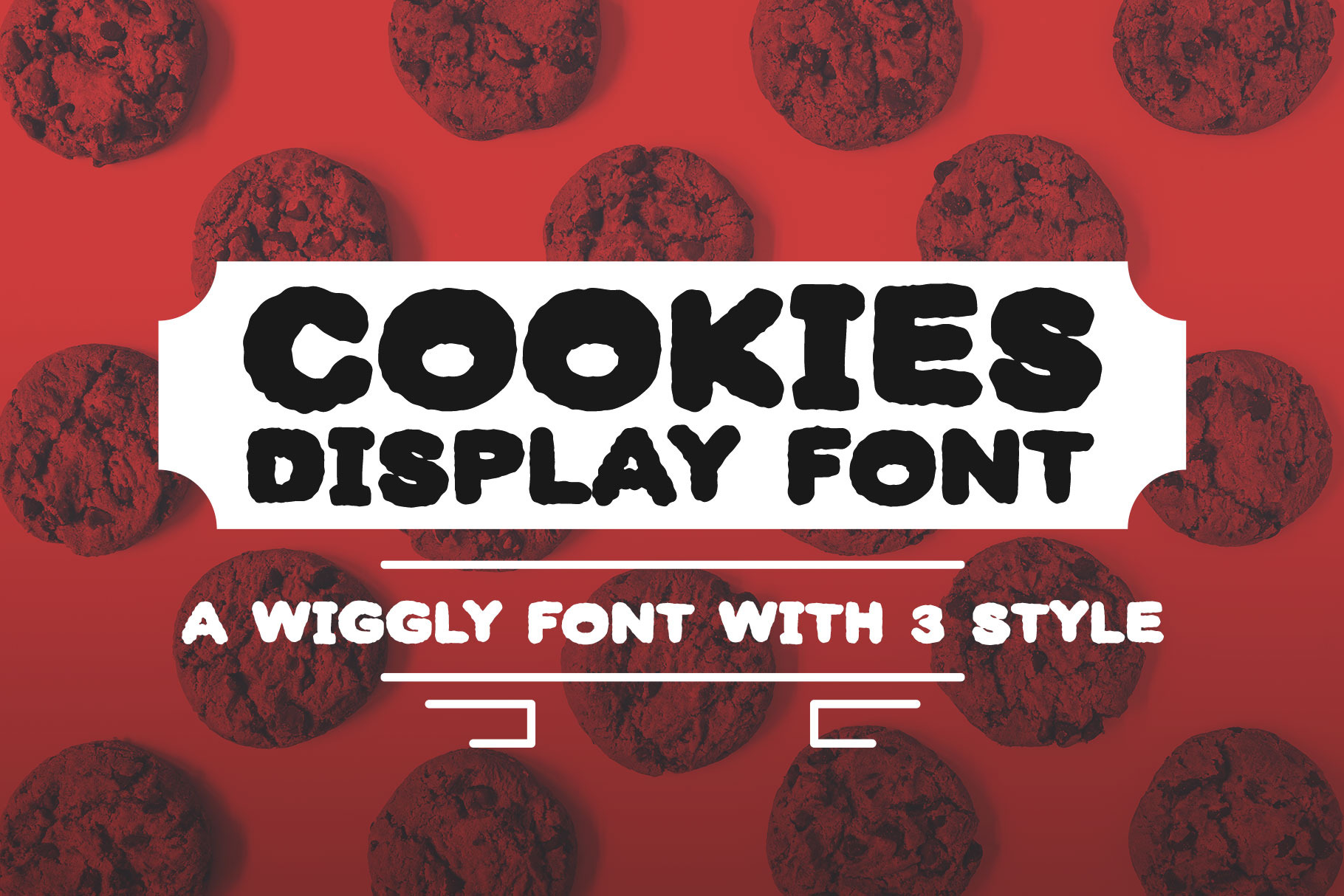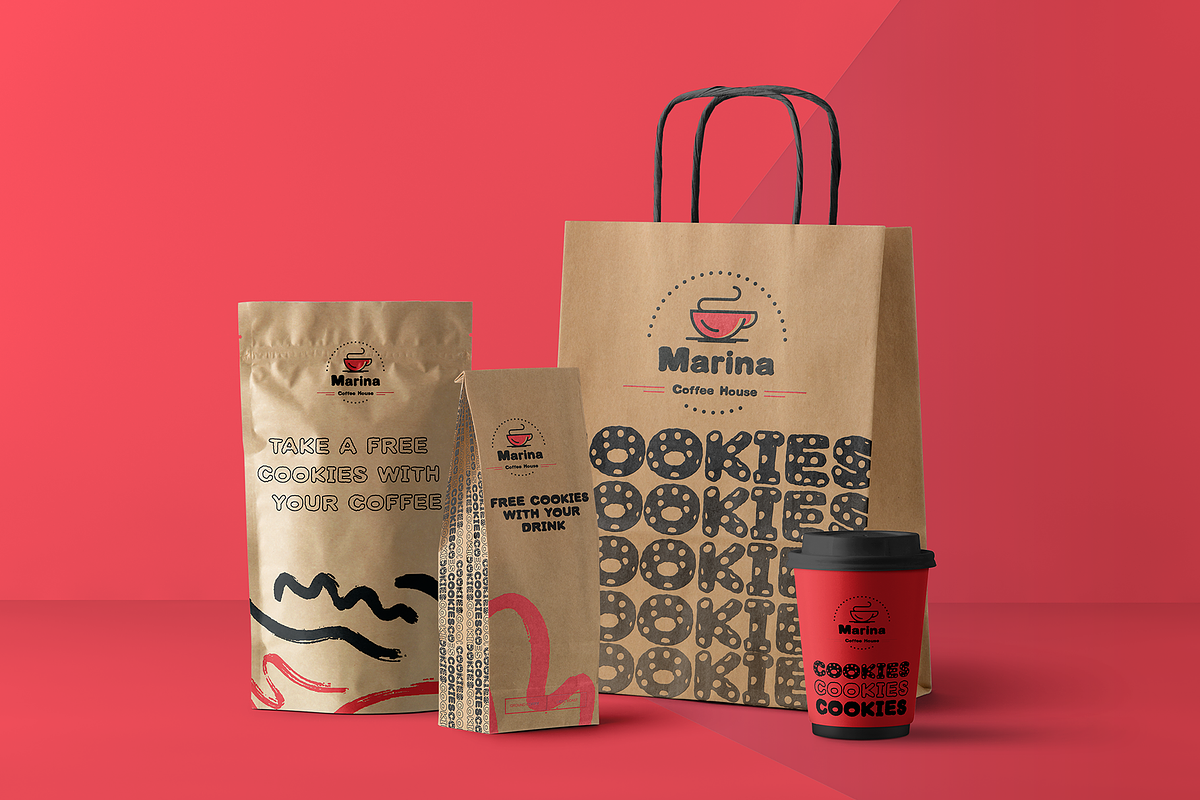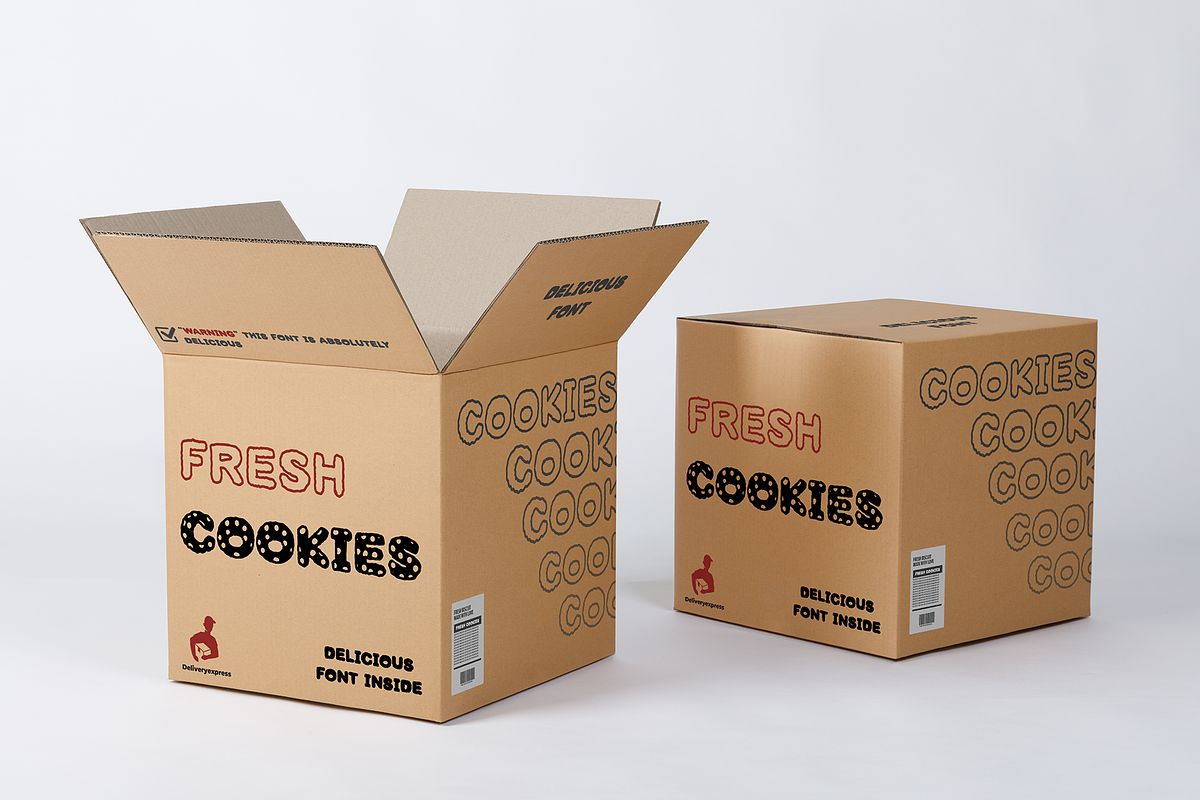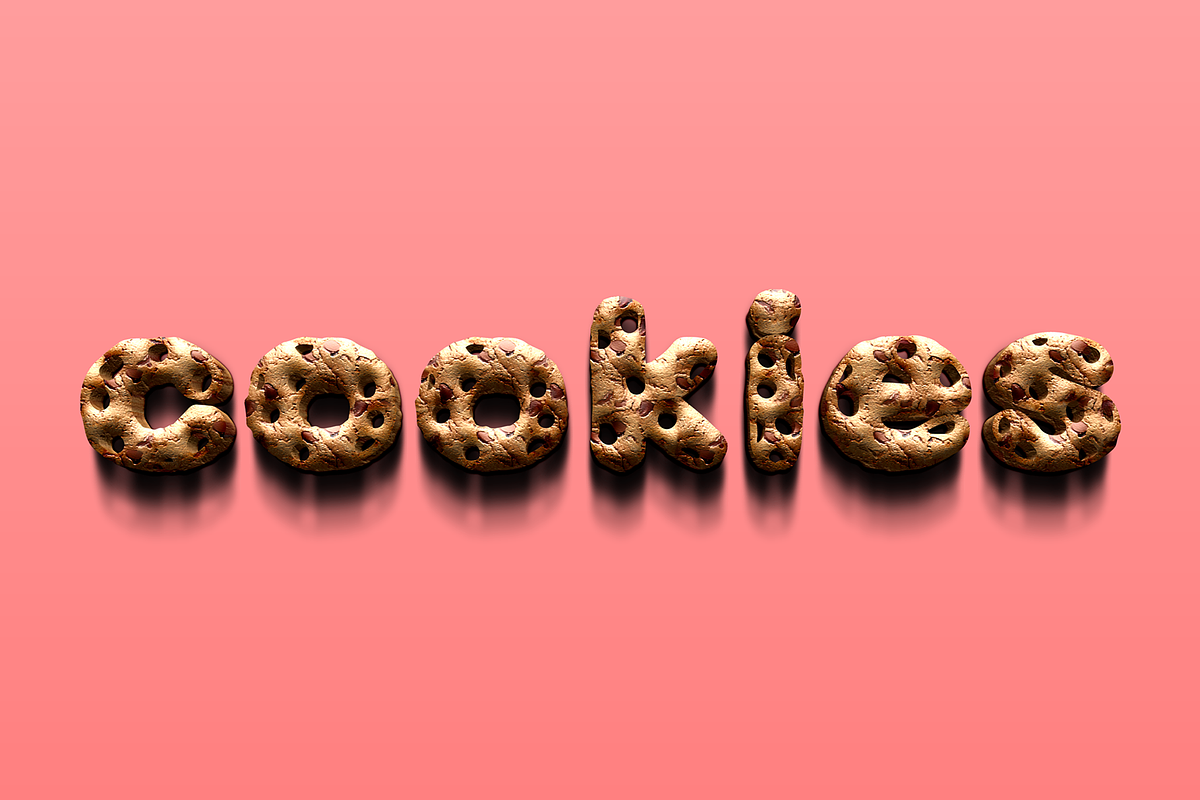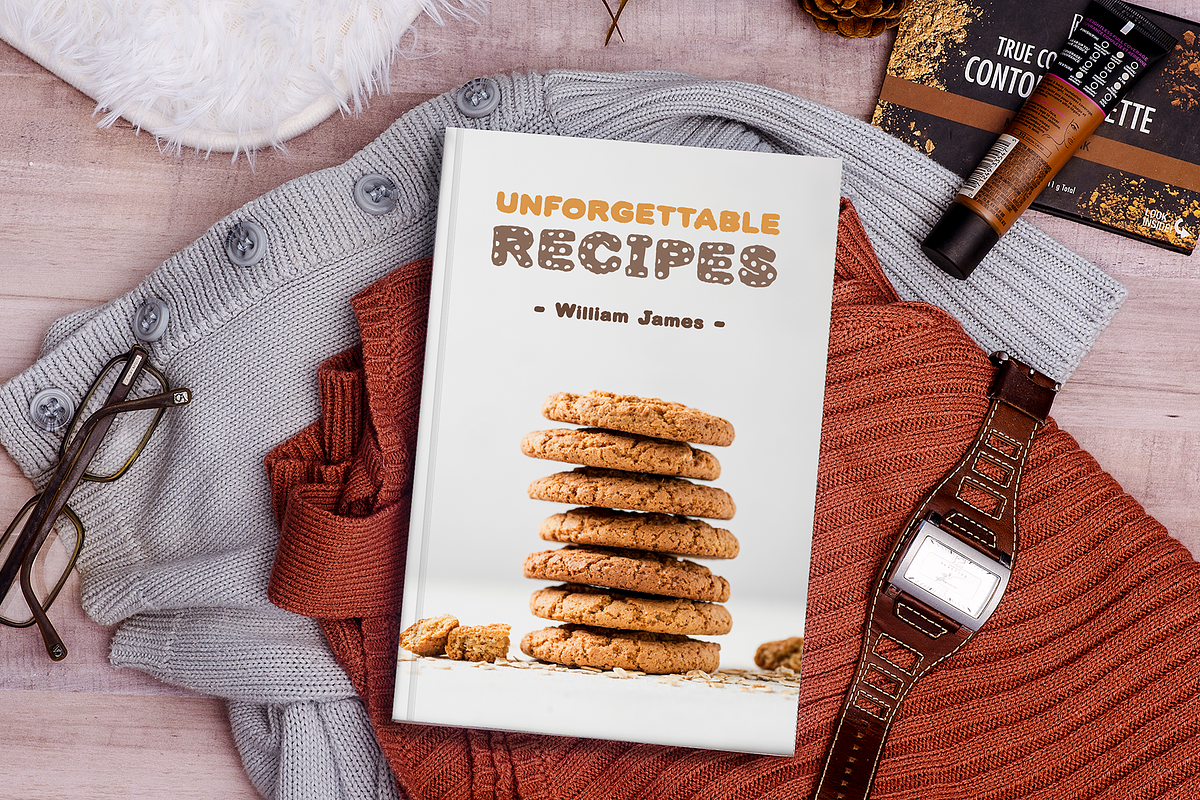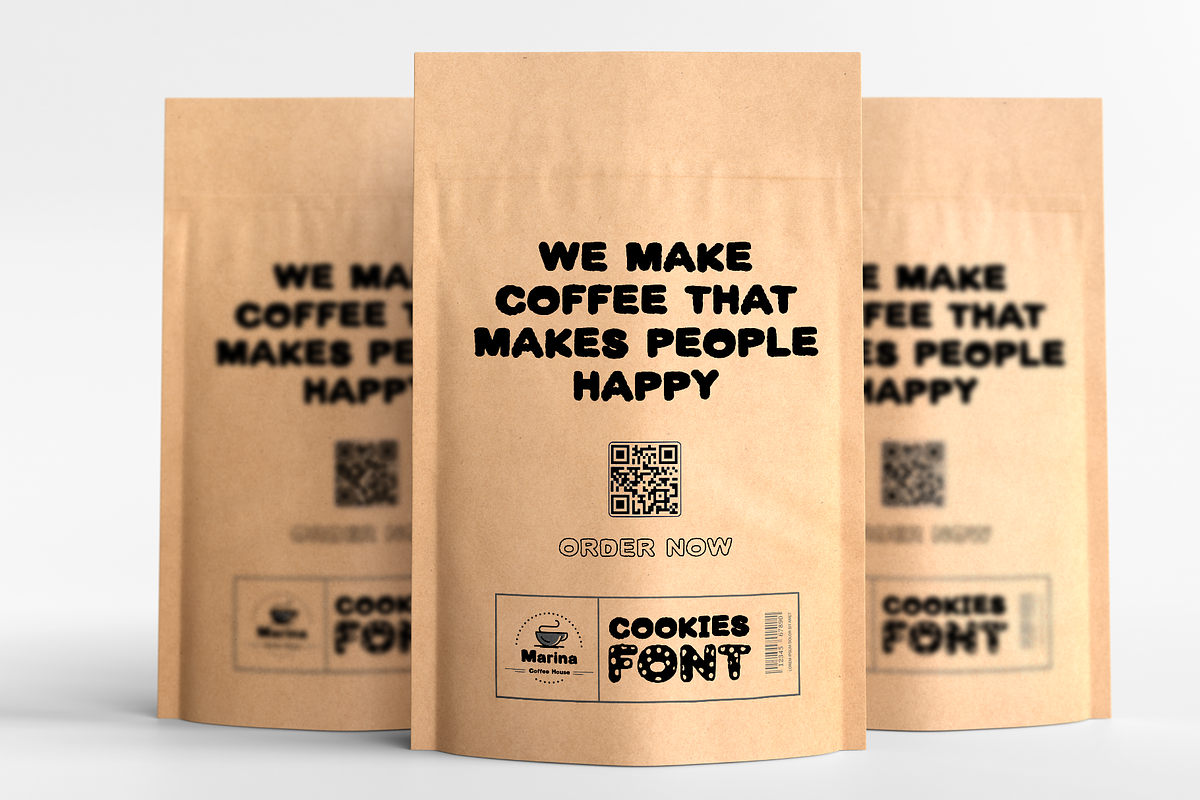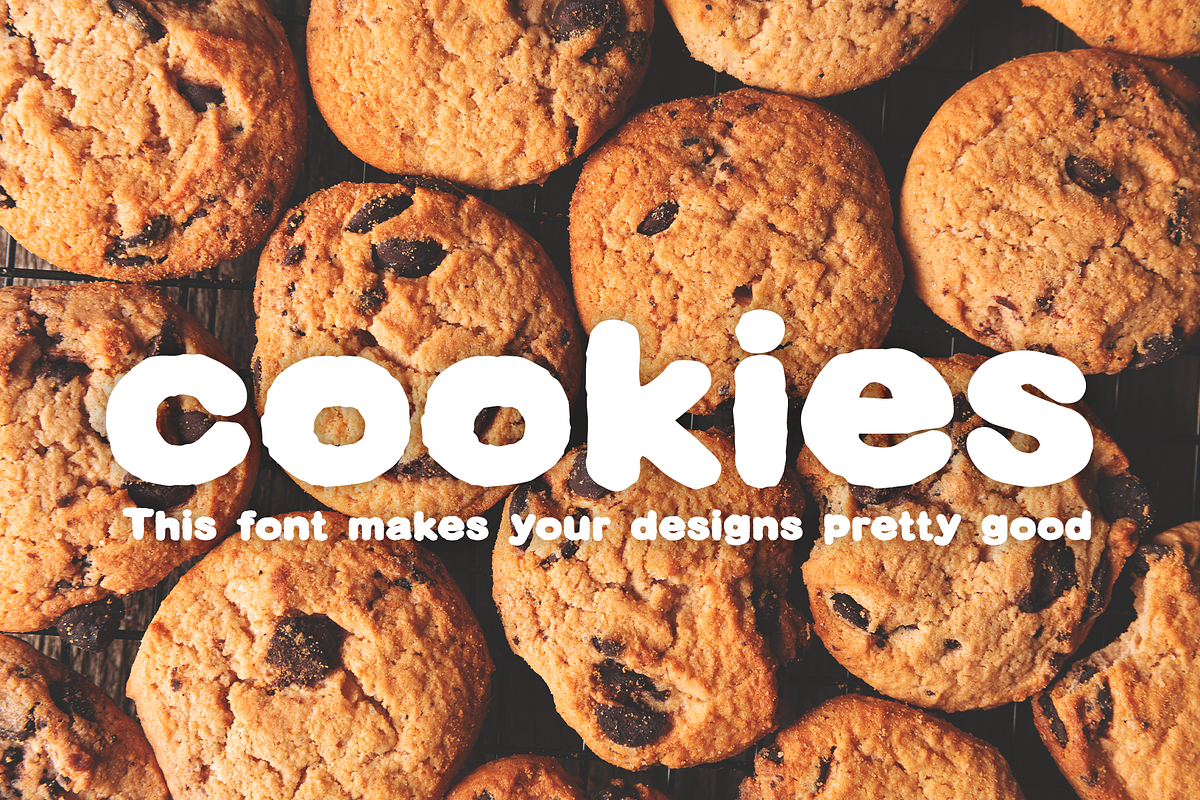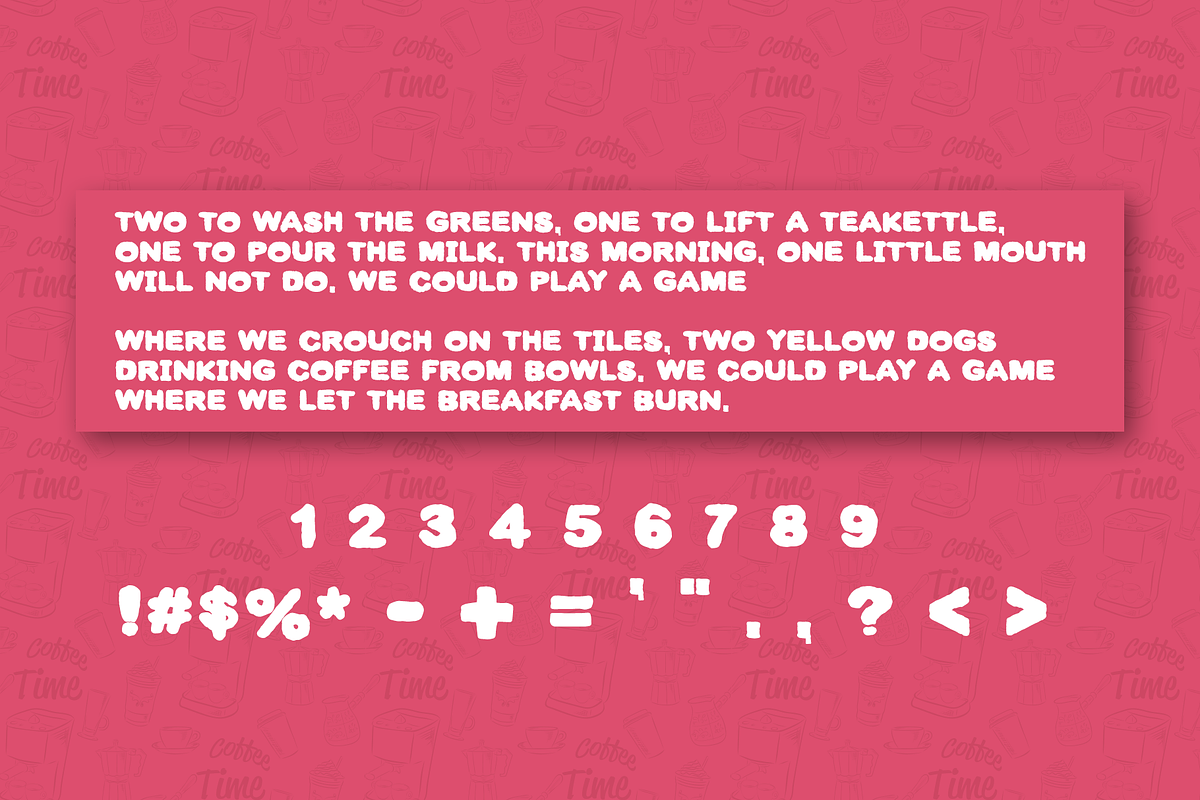
Cookies - A wiggly display font
Cookies font - A pretty font that makes your designs so beautiful.
I made it to give your designs a yummy look, you will get 3 styles in this package: (Solid font, Outline font, and Choco chips style). All these styles can generate many different typographic designs for book covers, packing, and social media. Font format: OTF.